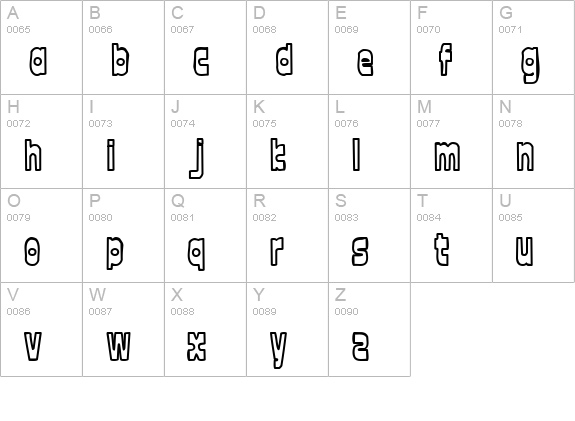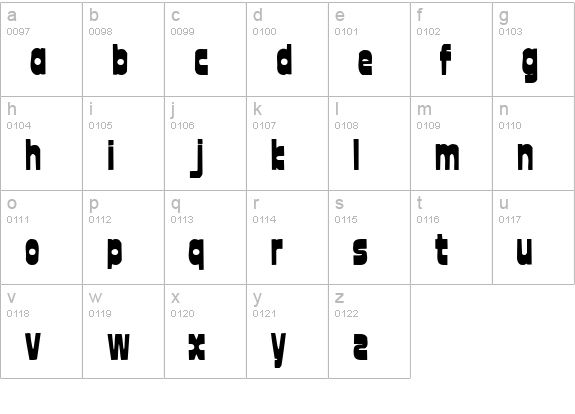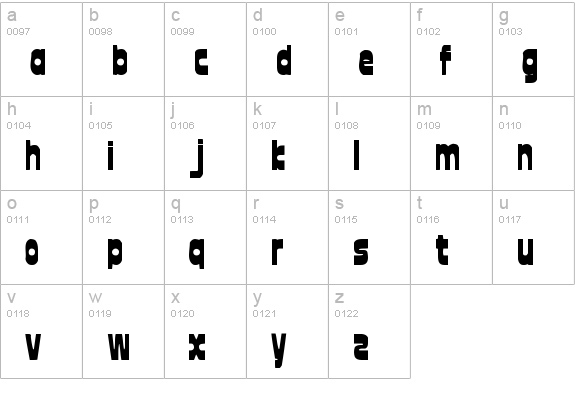
Discover the beauty of font twelve - a versatile and elegant typeface that exudes sophistication and readability. With its clean lines and classic design, font twelve is perfect for a wide range of projects, from professional documents to creative designs. Best of all, this stunning font is completely free to download at FontsMarket.com. Embrace the timeless charm of font twelve and elevate your typography game today!